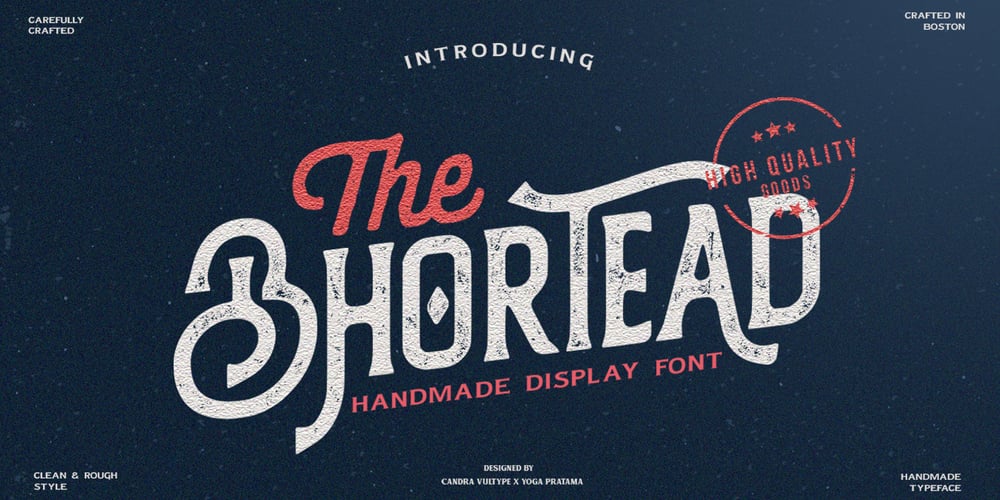
Bhortead
Bhortead font
Bhortead Font Family was designed by Candra Hamdani and published by Vultype Co. Bhortead contains 2 styles and family package options. Bhortead that has a vintage theme that you can use for your project. This font has 2 styles, Clean and Rough, and so you can use that style according to the type of project. This font has many OpenType features so you can combine each font to be more dynamic.Special features include: stylistic alternates, ligatures and swashes. Bhortead includes western European characters (multilingual support).All characters have an imperfect shape that gives a natural look in design. It cooperates well for creating the traditional style logos, labels, package design, lettering for t-shirts and much others.